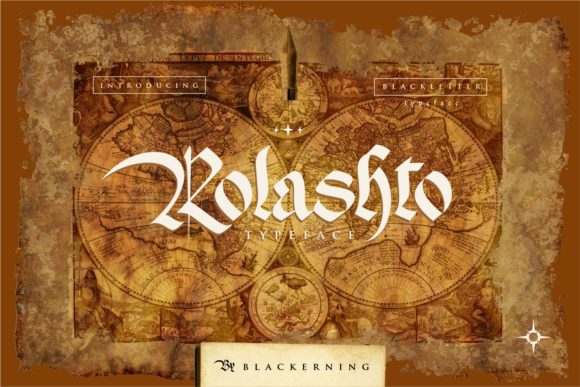
In a world saturated with monotony, where fonts blend together like raindrops in a storm, Rolashto emerges as a beacon of originality. This extraordinary blackletter font, meticulously crafted by the visionary minds at blackerning, is not just a collection of letters; it's a gateway to a universe where creativity knows no bounds.
Unleash the Untamed Spirit of Expression:
With Rolashto, your words dance off the page, captivating readers with their undeniable charm. This font is a symphony of elegance and distinction, transforming even the most mundane text into a visual masterpiece. Each stroke, each curve, each carefully placed detail in Rolashto narrates a story, evoking emotions that resonate deep within the reader's soul.
A Perfect Match for Your Creative Endeavors:
Whether you're a seasoned designer seeking to elevate your projects or a budding artist yearning to leave an indelible mark on the world, Rolashto is your muse. This font is a chameleon, adapting seamlessly to a myriad of creative expressions. From logos that exude timeless sophistication to posters that ignite the imagination, Rolashto effortlessly enhances your vision, bringing it to life with unparalleled artistry.
Make a Statement That Commands Attention:
In a crowded digital landscape, standing out from the noise is paramount. With Rolashto, you possess the power to create designs that demand attention, leaving a lasting impression on all who encounter them. This font isn't just a font; it's a statement piece, a declaration of your unique style and unwavering commitment to excellence. Let Rolashto be your ally in captivating audiences, leaving them spellbound by your creations.
Immerse Yourself in a World of Endless Possibilities:
With Rolashto, the creative possibilities are boundless. This font opens doors to unexplored realms of imagination, inviting you to embark on a journey where anything is possible. Experiment with different colors, textures, and layouts, blending them seamlessly with Rolashto to create designs that transcend the ordinary. Let your creativity soar, let your imagination run wild, and witness the magic that unfolds when you wield the power of Rolashto.